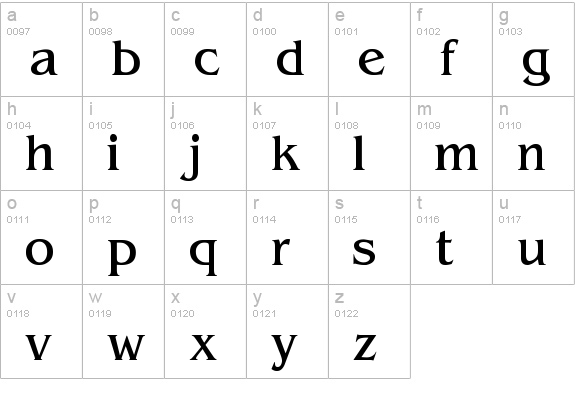
Contacto Font Details
Contacto font is a modern and stylish typeface that exudes elegance and sophistication. With its sleek lines and clean design, Contacto is perfect for a wide range of design projects, from branding to editorial layouts. This versatile font offers a balance of professionalism and creativity, making it suitable for both formal and creative applications. What sets Contacto font apart is that it is available for free download at FontsMarket.com. This means that you can access this high-quality font without any cost, making it a valuable asset for designers and creatives looking to enhance their projects without breaking the bank. Don't miss out on the opportunity to elevate your designs with Contacto font, the perfect blend of style and accessibility.